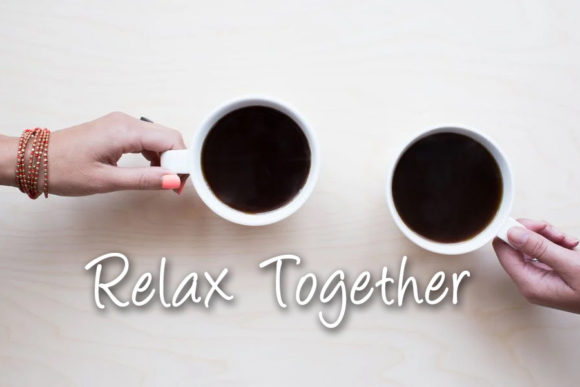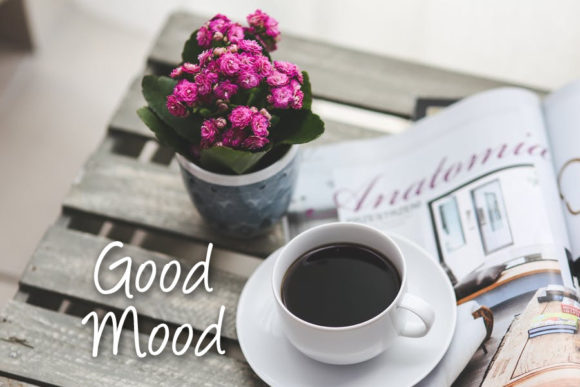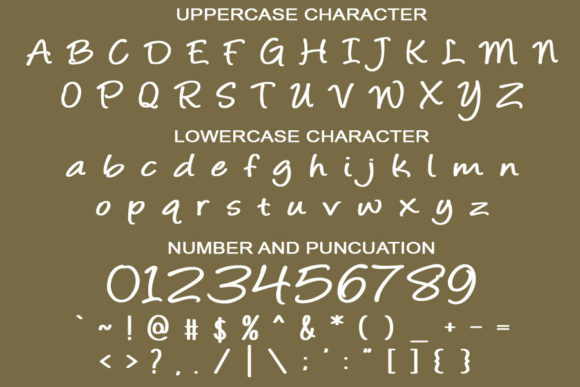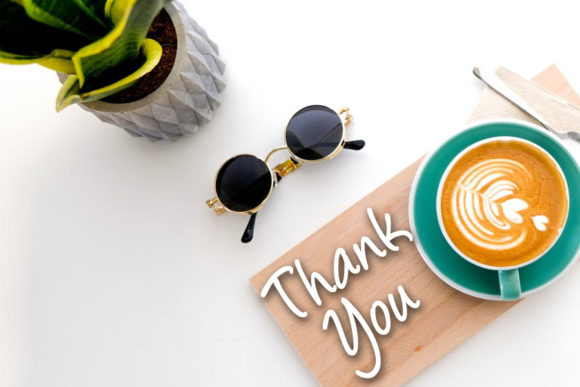
Coffee Break Font: Elevate Your Designs with a Fun and Friendly Touch
Are you tired of using the same old fonts in your designs? Do you want to add a touch of personality and whimsy to your projects? Look no further than the Coffee Break Font! This simple and flowing handwritten font is the perfect addition to any designer’s toolkit. In this article, we’ll dive into the features and benefits of Coffee Break Font and explore how it can elevate your designs.
What is Coffee Break Font?
Coffee Break Font is a beautiful, handwritten font that exudes a sense of friendliness and approachability. Its flowing lines and curves make it perfect for a wide range of design projects, from branding and packaging to social media graphics and blog posts. This adaptable font is designed to work seamlessly with various design ideas, making it a versatile addition to your font collection.
Key Features of Coffee Break Font
- Simple and flowing design: Coffee Break Font features a clean and elegant design that’s easy to read and looks great in various sizes.
- Handwritten style: The font’s handwritten style adds a personal touch to your designs, making them more relatable and engaging.
- Adaptable: Coffee Break Font works well with a variety of design ideas, from playful and fun to professional and elegant.
- Fun and friendly: The font’s friendly and approachable vibe makes it perfect for designs that require a lighthearted and approachable tone.
Benefits of Using Coffee Break Font
So, why should you choose Coffee Break Font for your designs? Here are just a few benefits of using this amazing font:
- Adds personality to your designs: Coffee Break Font helps you stand out from the crowd by adding a unique and playful touch to your designs.
- Enhances readability: The font’s clear and flowing design makes it easy to read, even in small sizes.
- Versatile: Coffee Break Font works well with various design styles, from modern and minimalist to vintage and distressed.
- Time-saving: With Coffee Break Font, you can create stunning designs in no time, thanks to its ease of use and flexibility.
Design Ideas to Use Coffee Break Font
Now that we’ve covered the features and benefits of Coffee Break Font, let’s explore some design ideas to get you started:
- Branding and packaging: Use Coffee Break Font to create eye-catching logos, labels, and packaging that reflect your brand’s personality.
- Social media graphics: Add a fun and friendly touch to your social media graphics, such as Facebook posts, Instagram stories, and Twitter headers.
- Blog posts and articles: Use Coffee Break Font to add a personal touch to your blog posts and articles, making them more engaging and readable.
- Invitations and events: Create beautiful invitations, flyers, and event materials that showcase your creativity and style.
Tips for Using Coffee Break Font
To get the most out of Coffee Break Font, here are some tips to keep in mind:
- Experiment with sizes and colors: Play around with different font sizes and colors to find the perfect combination for your design.
- Pair with other fonts: Combine Coffee Break Font with other fonts to create a unique and visually appealing design.
- Use in combination with images: Pair Coffee Break Font with high-quality images to create stunning visuals that capture your audience’s attention.
In conclusion, Coffee Break Font is a simple yet powerful font that can elevate your designs and add a fun and friendly touch to your projects. With its flowing lines, handwritten style, and adaptability, this font is perfect for designers and crafters looking to create stunning visuals. So why wait? Download Coffee Break Font today and start creating amazing designs that showcase your creativity and style!